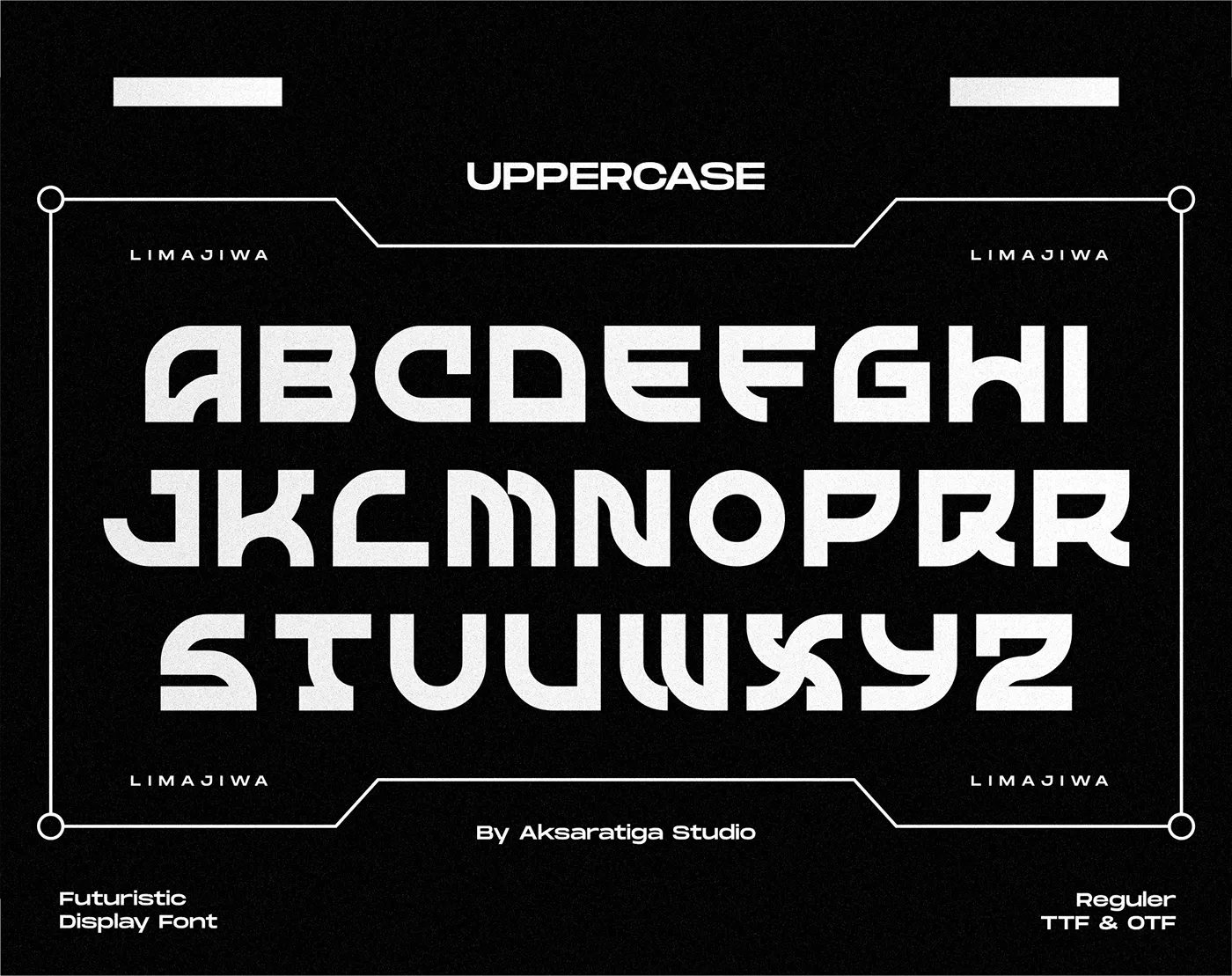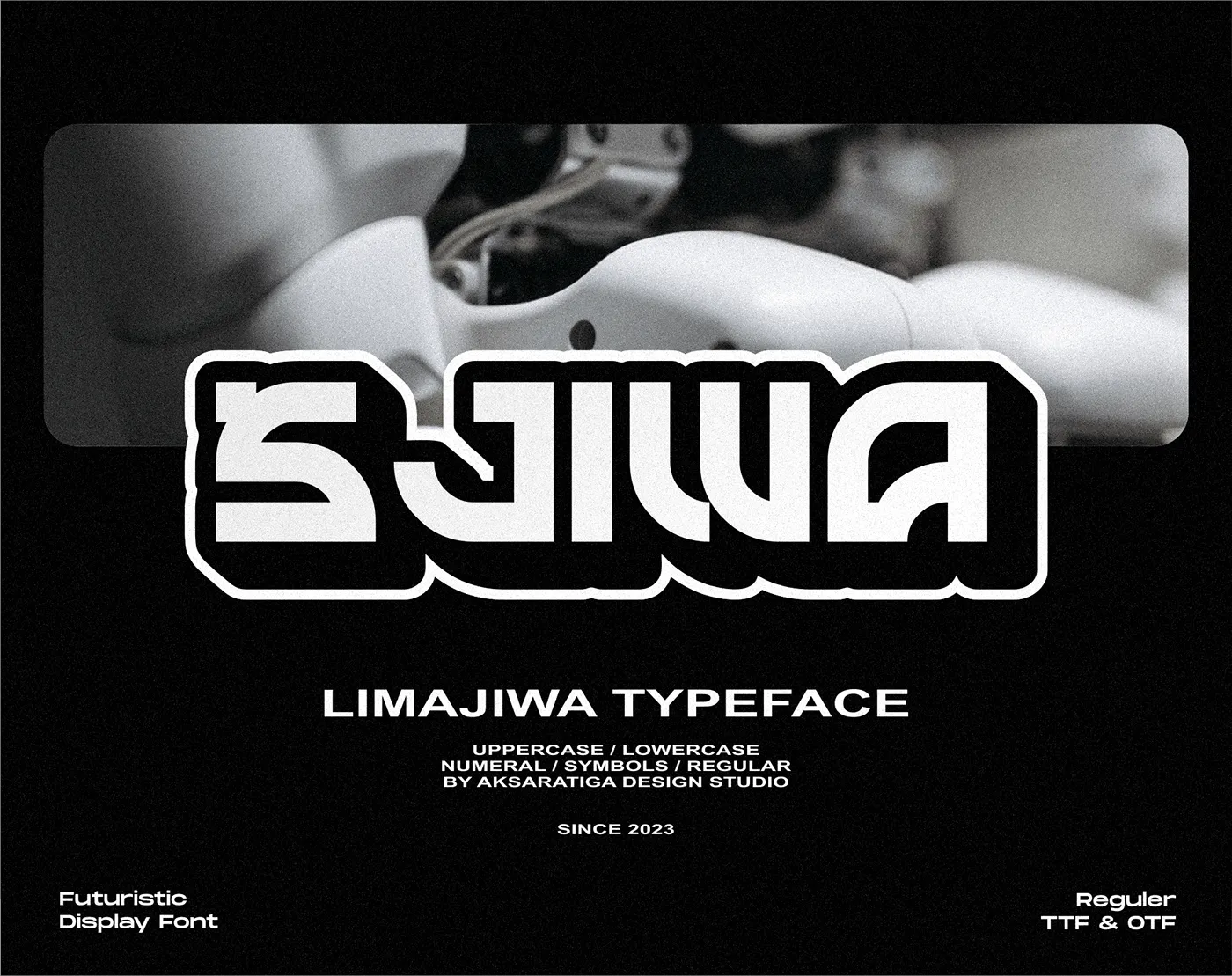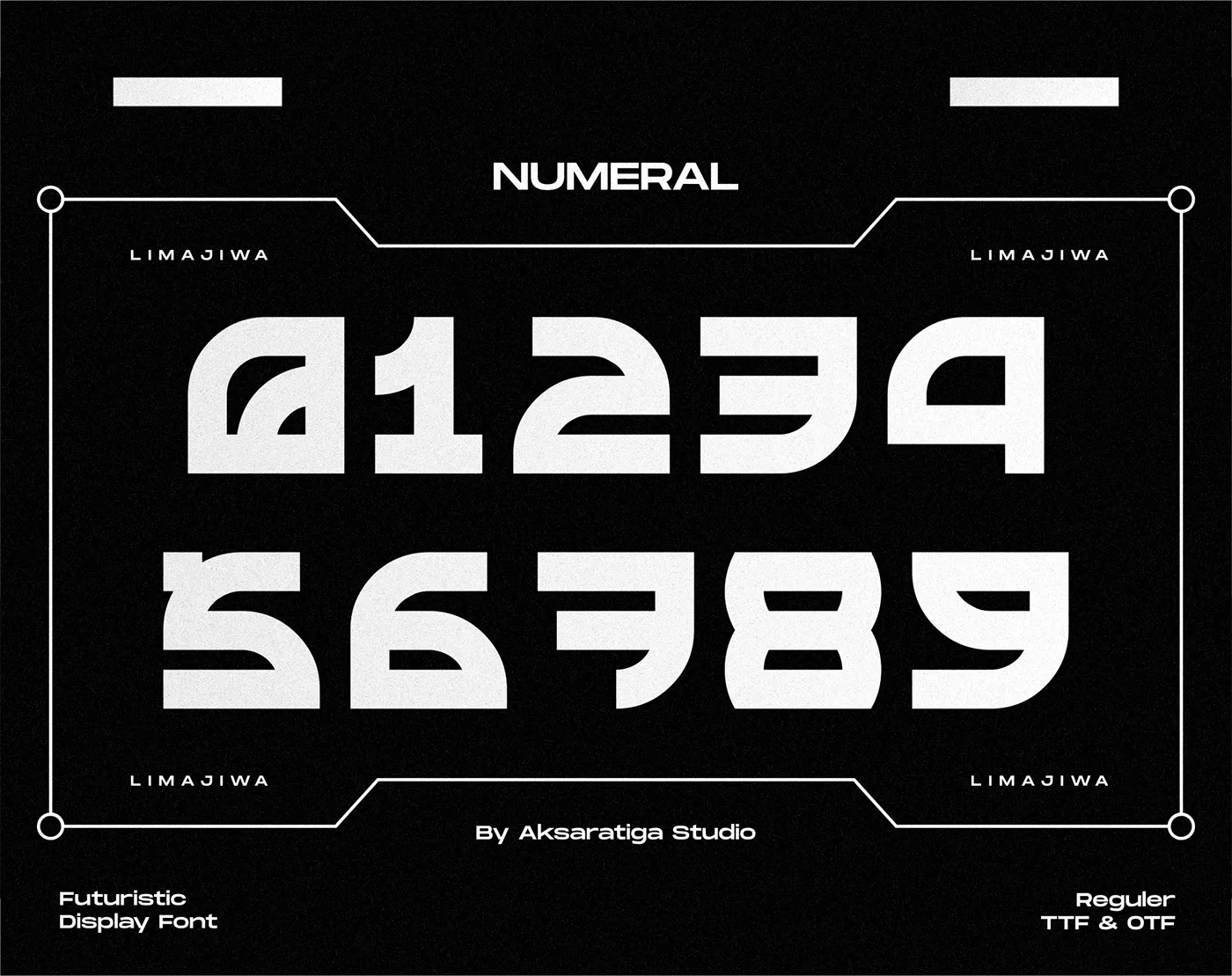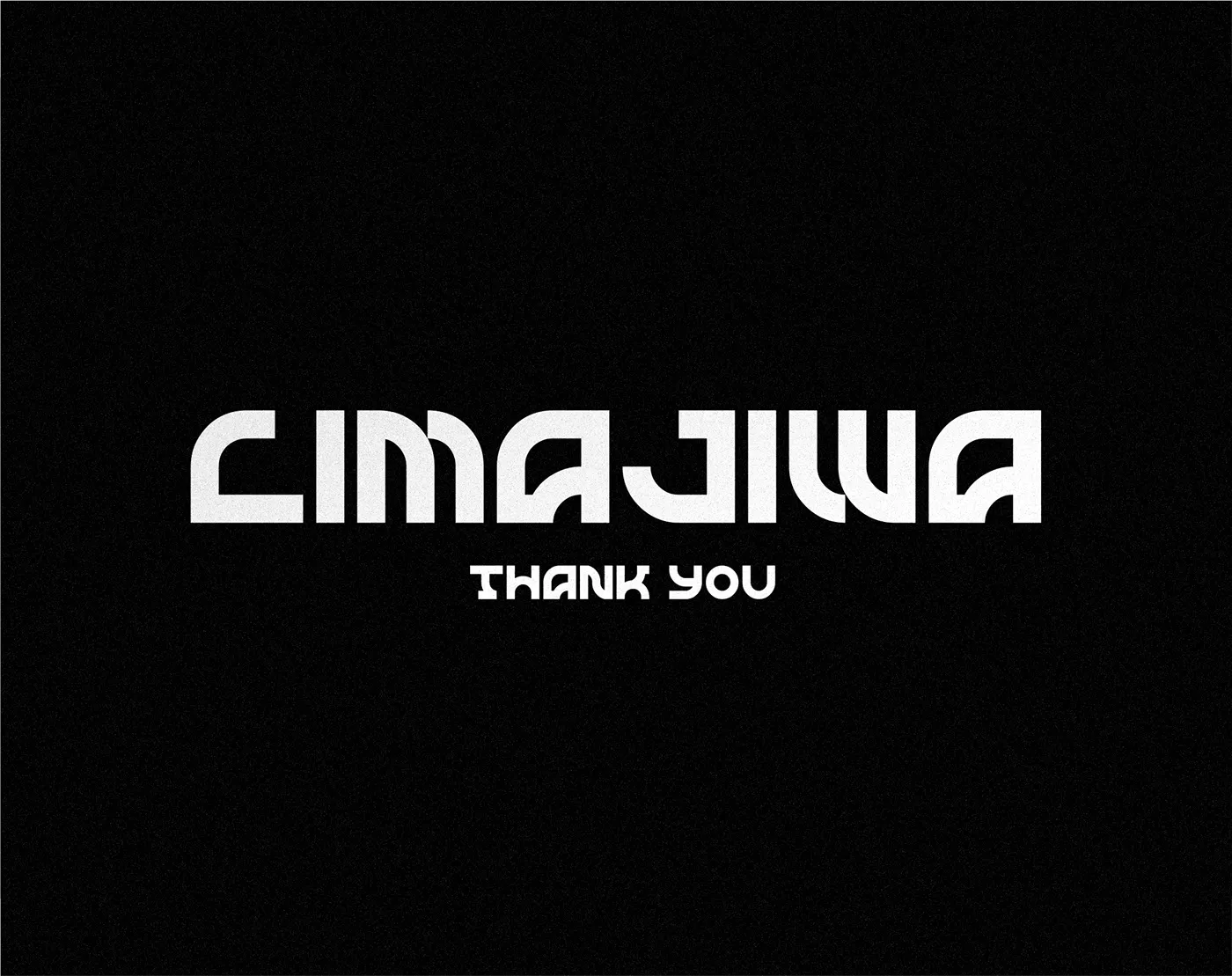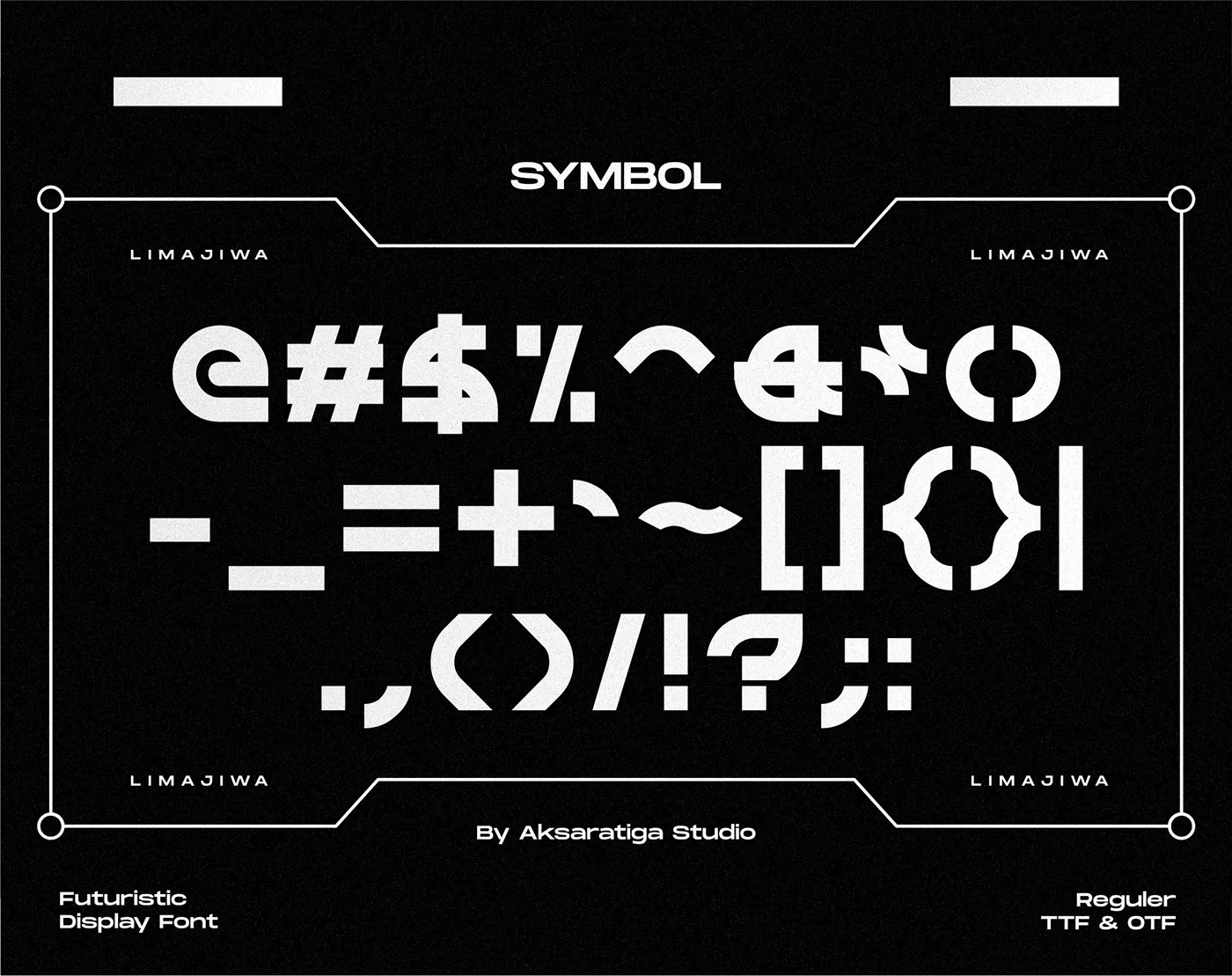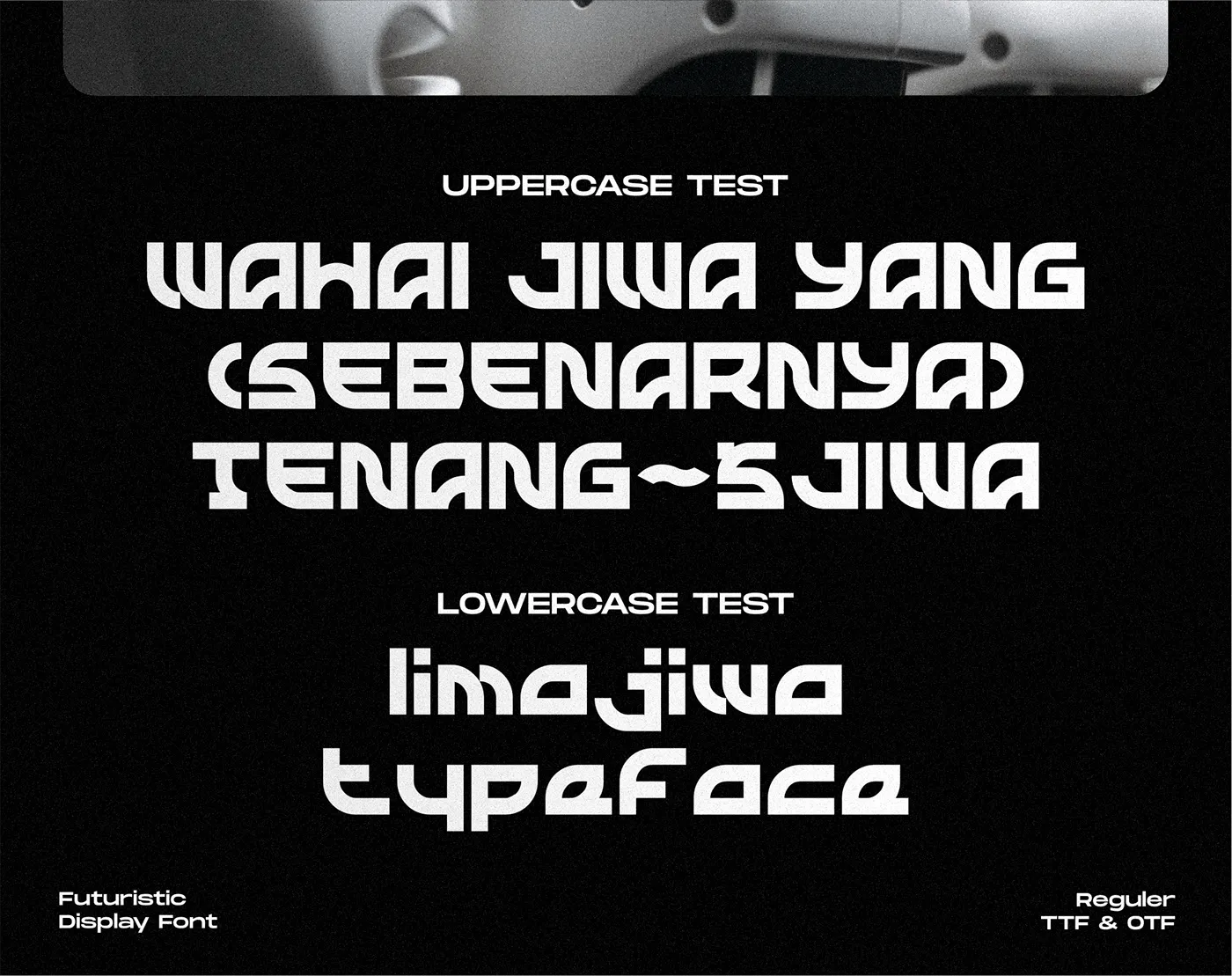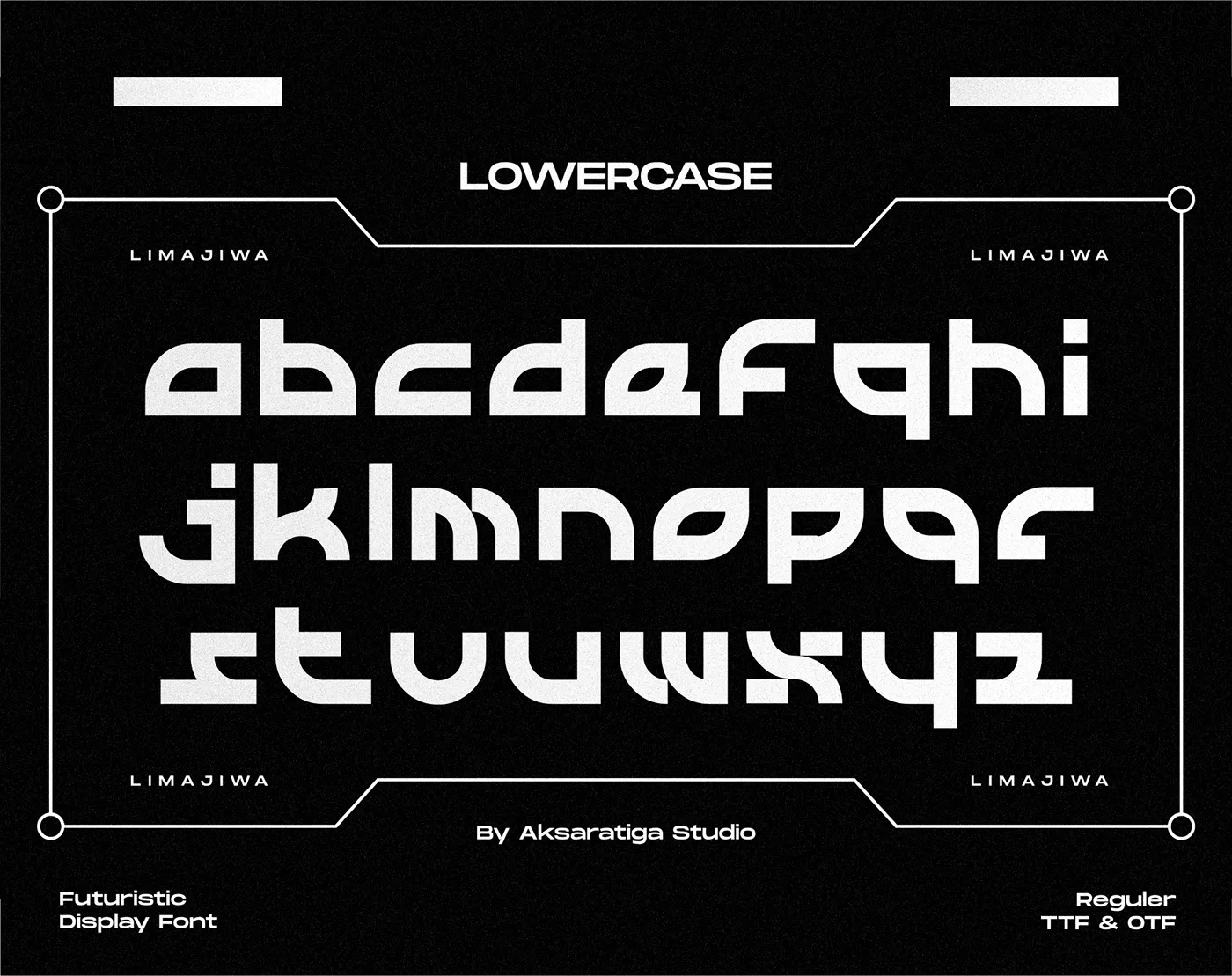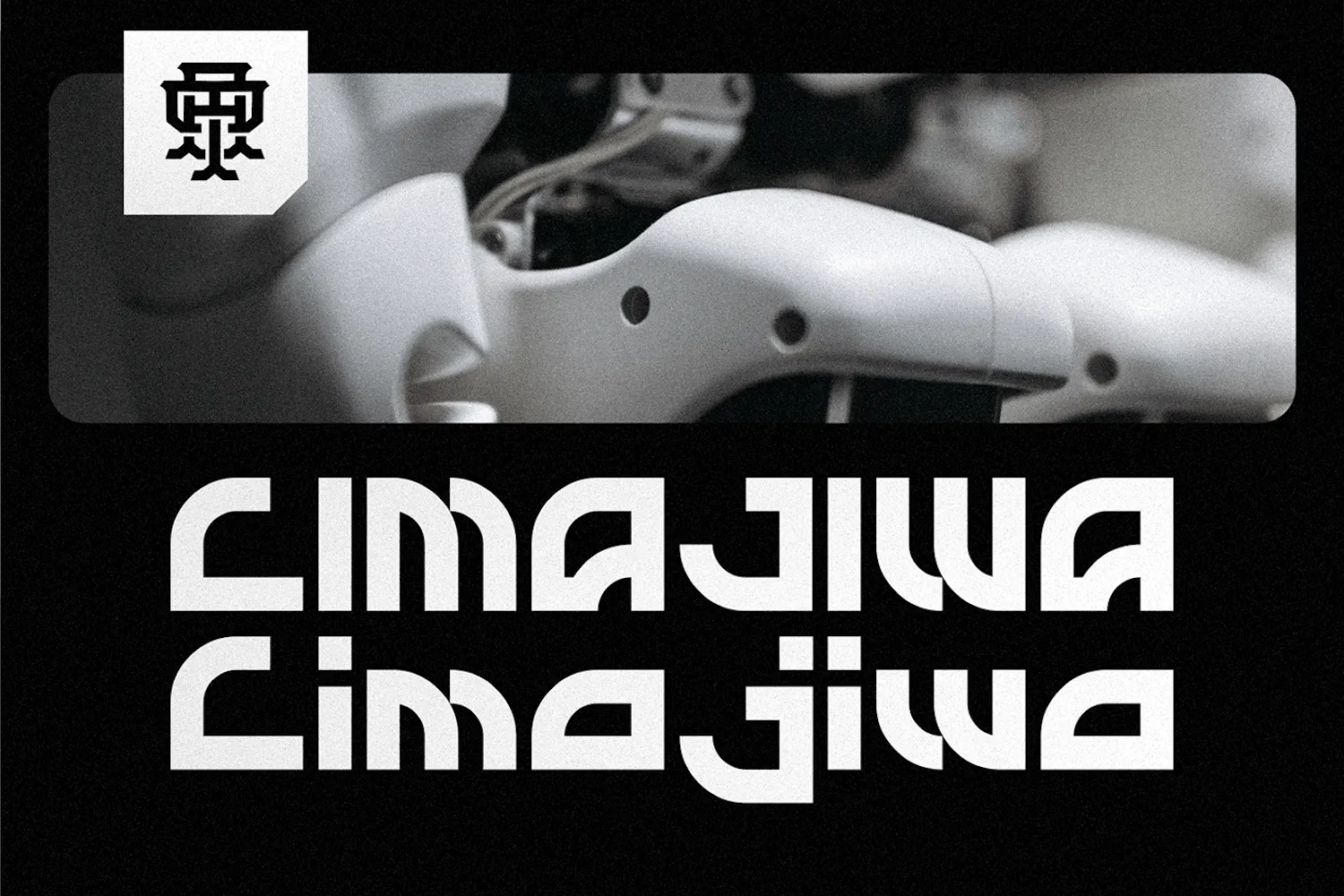
Limajiwa - Free Futuristic Display Font
Introducing Limajiwa, a free futuristic display font created by . It features unique curves and letterforms that are perfect for use in display scenarios such as logos, posters, headlines & packaging.